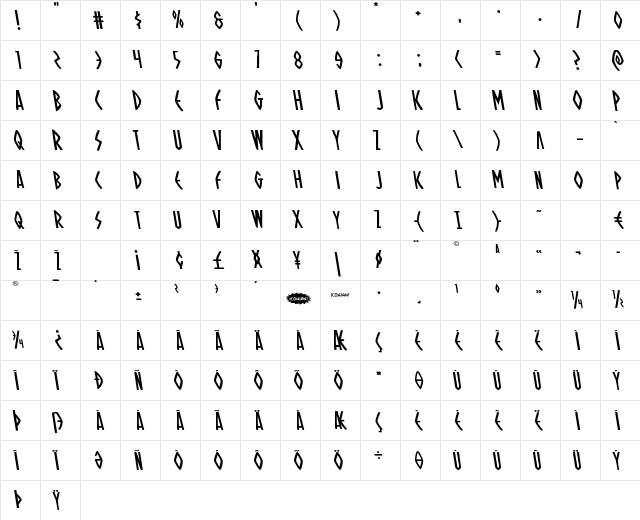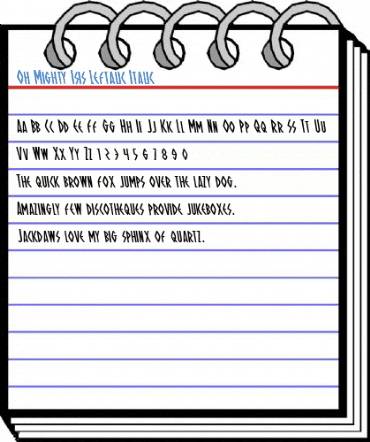
Complete Oh Mighty Isis Leftalic Italic glyph index. Displaying only characters natively supported by Oh Mighty Isis Leftalic Italic font.
Oh Mighty Isis Leftalic is a composed and adaptable typeface that performs quietly and consistently across a wide range of design contexts. The slanted form adds forward momentum and visual energy.
Pro Tip: Use Oh Mighty Isis Leftalic for emphasis, pull quotes, and subheadings where its slanted energy can add rhythm to the layout.